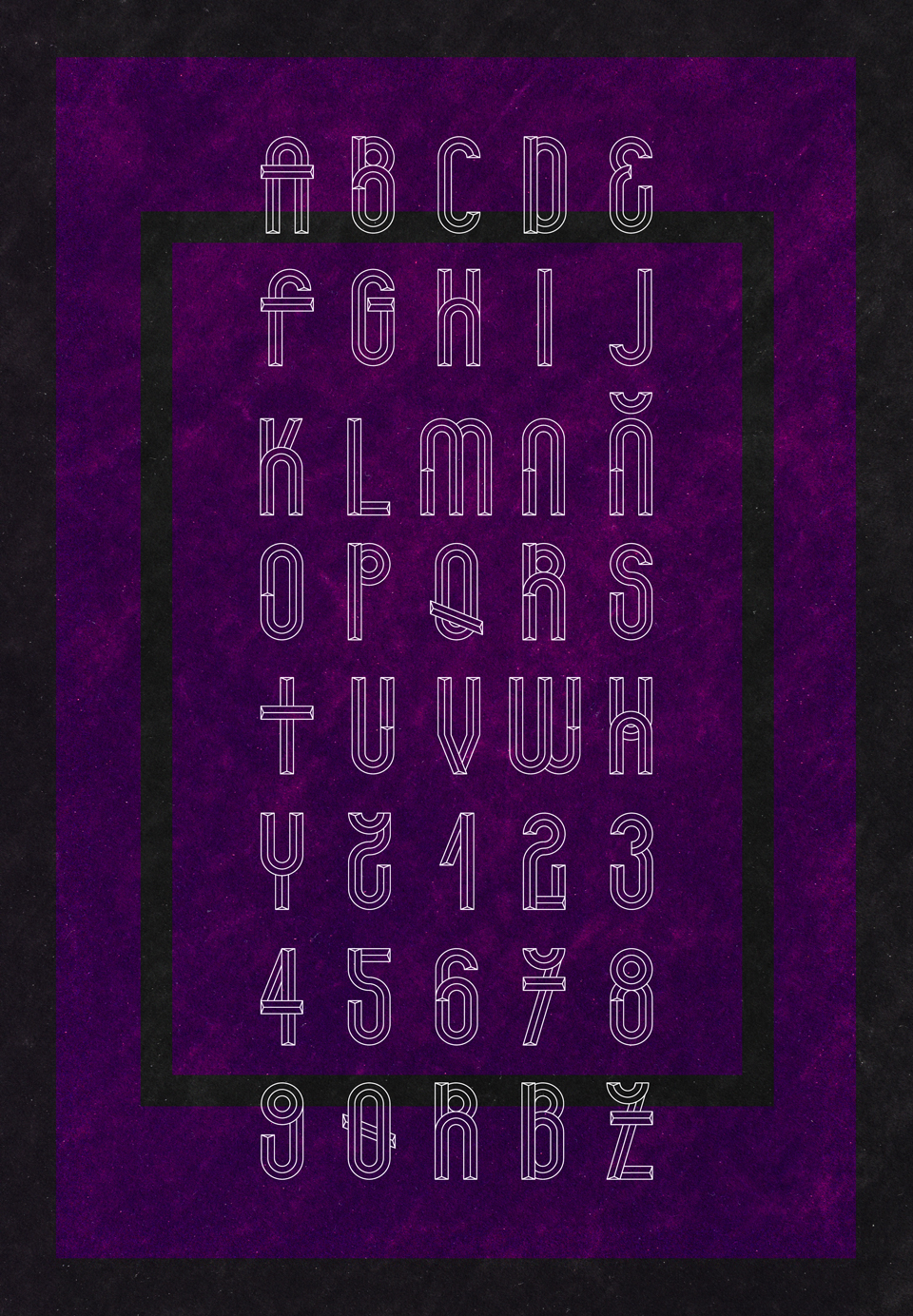
"Triquiñuela" is a popular Spanish word used to speak of a trick, stratagem or artifice to get something.
Inspired by Art Deco display alphabets and types from the latest global trends, "Triquiñuela" is an experimental modular typeface with limited characters. The letters are based on geometric modules with 2 different styles.
I started developing this type in "Play", a modular typeface workshop conducted by Maestro Pablo Abad in MrMarcel School (2013)